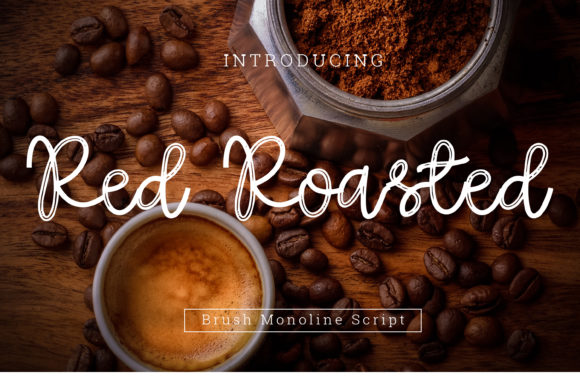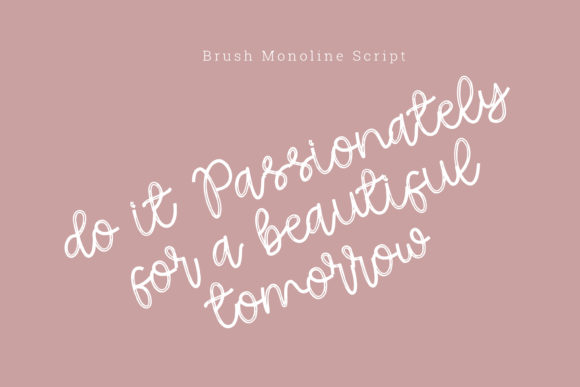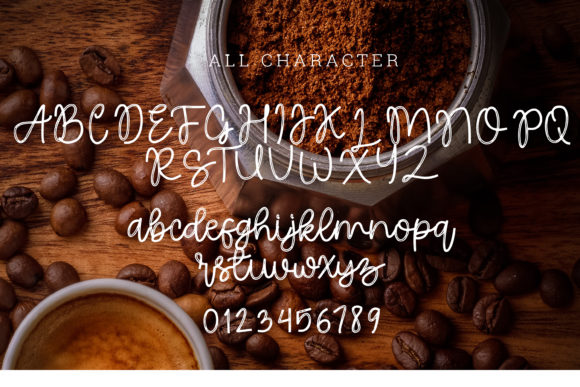
About Red Roasted Font
Introducing “Red Roasted,” a flowing handwritten font that exudes elegance and charm. Its graceful touch and timeless style make it a perfect choice for your favorite design projects. Prepare to be captivated by its distinct allure and watch as it adds a touch of sophistication to your creations, allowing you to craft truly spectacular designs!
With “Red Roasted,” you have a font that flows with effortless beauty. Its smooth lines and flowing strokes give your designs a sense of movement, creating a captivating visual experience. Whether you’re working on wedding invitations, branding materials, or artful prints, this font adds an air of refinement that leaves a lasting impression.
The versatility of “Red Roasted” allows it to complement a wide range of design styles and themes. From modern and minimalist to classic and vintage, this font effortlessly adapts to your creative vision, making it a reliable choice for all your projects.
Unleash your creativity and watch as “Red Roasted” enhances your designs with its elegant touch. Whether you’re crafting social media graphics, creating elegant posters, or designing packaging, this font will elevate your ideas to new heights of sophistication and allure.
Embrace the distinctiveness of “Red Roasted,” and let it be the muse for your most imaginative designs. Fall in love with its flowing and handwritten charm, and watch as it transforms your ideas into breathtaking visuals that captivate and inspire.
So, immerse yourself in the allure of “Red Roasted” and let it become your creative companion. Allow its elegant touch and timeless style to inspire your designs, turning them into spectacular works of art. Whether you’re a seasoned designer or a passionate enthusiast, “Red Roasted” empowers you to create visuals that stand out and make a statement. Let “Red Roasted” be the key to unlocking the elegance and charm in your designs, and watch as it takes your projects to new heights of beauty and excellence!